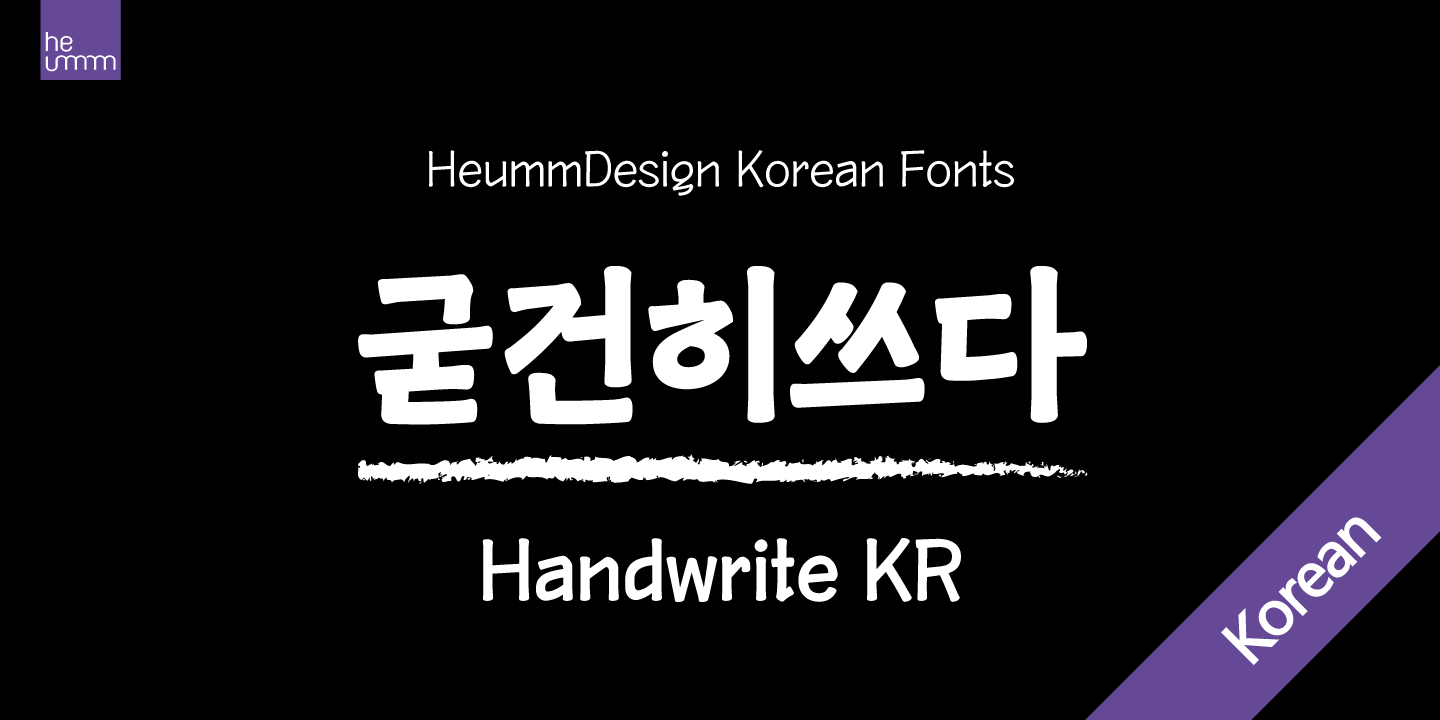
HU Handwrite KR Font is ideal for personal diary designs, handwritten letter templates, authentic journal layouts, Korean cultural projects, educational handwriting materials, artistic calligraphy displays, personalized stationery designs, and traditional Asian-inspired branding. This authentic typeface brings genuine handwritten character and cultural authenticity to any design project requiring personal touch and Korean aesthetic elements.
What makes HU Handwrite KR Font exciting is its authentic replication of natural Korean handwriting that captures the fluid beauty and cultural essence of traditional penmanship. The organic letterforms feature natural variations and flowing strokes that create a genuinely personal appearance. Each character maintains the distinctive characteristics of Korean handwriting while ensuring excellent readability, making it perfect for projects that celebrate Korean culture and handwritten authenticity.
The HU Handwrite KR Font family includes regular weight with complete Korean character sets, including Hangul syllables, numbers, punctuation marks, and basic Latin characters. The comprehensive Unicode support ensures proper display of Korean text while maintaining the authentic handwritten aesthetic across different writing systems and multilingual applications.
Whether you're developing Korean cultural content or creating personalized design materials, HU Handwrite KR Font Free Download offers unmatched authenticity and cultural sensitivity. This distinctive typography choice transforms digital text into personal handwritten experiences that resonate with audiences appreciating genuine cultural expression. The font's natural appearance ensures exceptional emotional connection across various applications while maintaining its distinctive Korean handwriting character that makes every design project feel like a personal letter written with care and cultural pride.